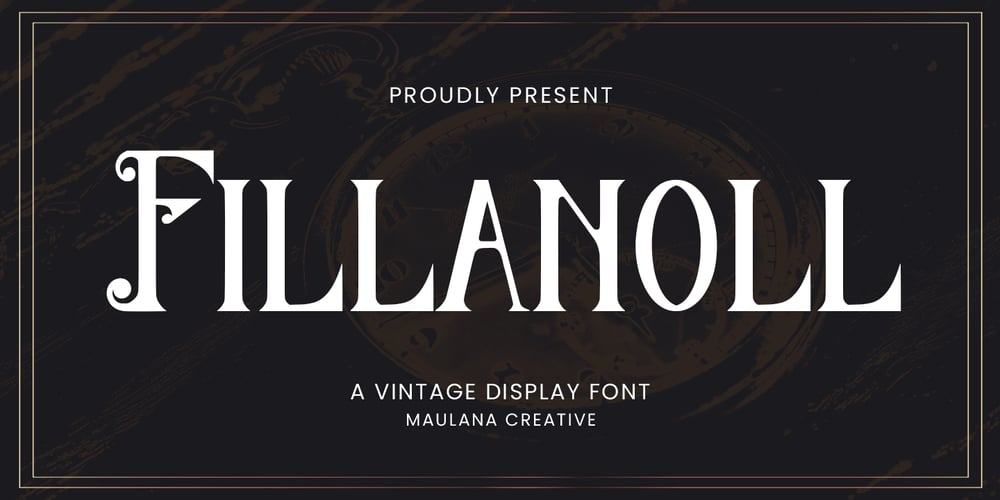
MC Fillanoll Font Family was designed by Gilang Maulana and published by Maulana Creative. MC Fillanoll contains 1 styles and family package options. Fillanoll – Vintage Display FontFillanoll is a vintage display handlettering, which is combining modern and classic typography with some awesome alternates. Yes we back to early 1800s, bring classic touch on this decade.Thanks for use this font.Maulana Creative.